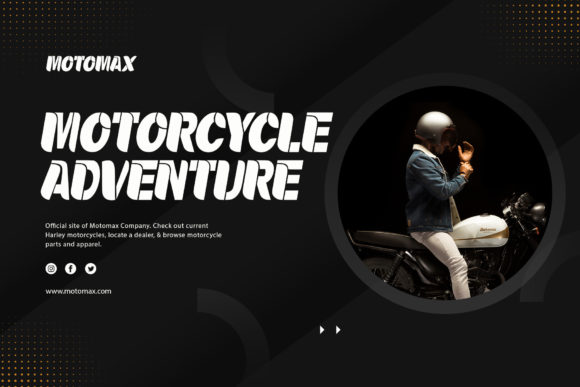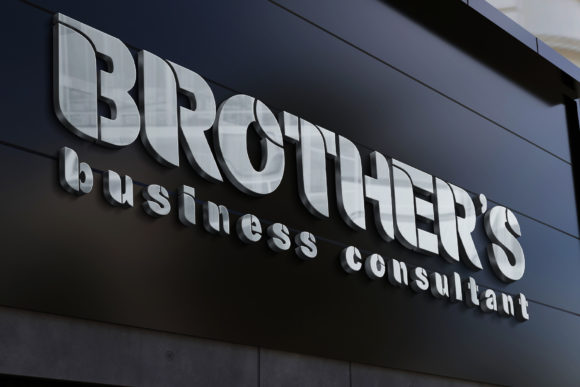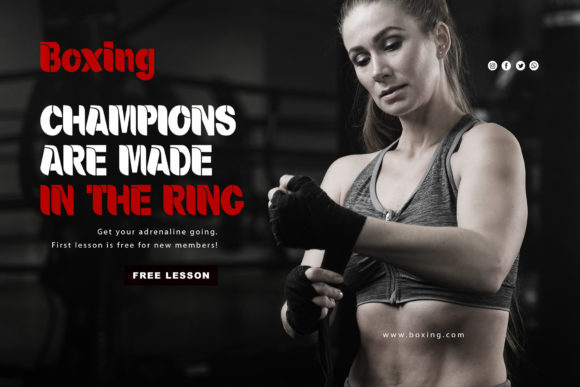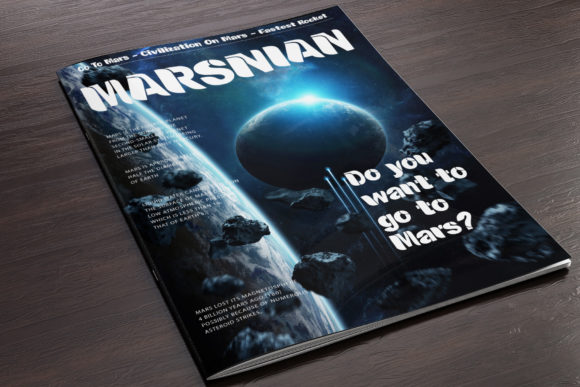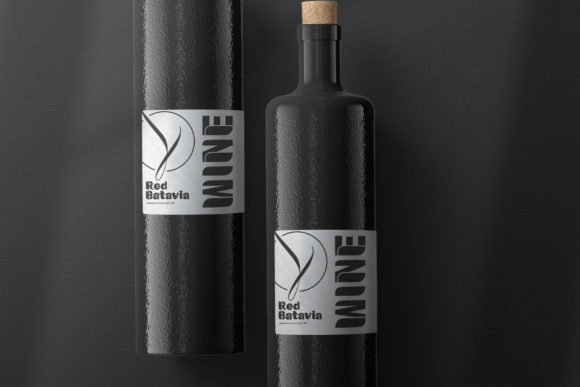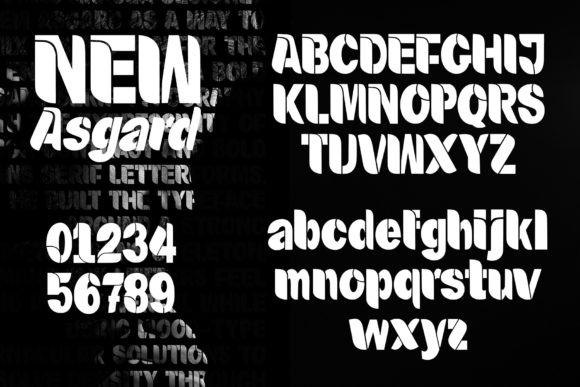
Introduction to New Asgard Font
Do you remember that moment when your creative idea finally comes together, and you can’t wait to share it with the world? That rush of excitement is what drives designers like us to keep pushing the boundaries of what’s possible. And for those moments when you need a font that can elevate your design to the next level, we’re excited to introduce you to the New Asgard Font – a modern and futuristic display font that’s about to take your creative project to new heights!
With its bold characters and solemn style, the New Asgard Font is a game-changer for designers. Whether you’re working on a free download project or a high-quality commercial design, this versatile font is sure to make your design stand out. Plus, with its transparent background, you can easily customize it to fit your design resource needs. In this article, we’ll dive deeper into the world of the New Asgard Font and explore why it’s a valuable addition to any designer’s toolkit.
Key Features of New Asgard Font
- Unique, hand-drawn design ideal for creative projects and illustrations
Honest Review: New Asgard Font
I recently had the chance to work with the New Asgard Font, and I’m excited to share my thoughts on this design resource.
- High quality font styles that are perfect for a creative project
- Free download option available, which is great for designers on a budget
- Transparent background makes it easy to use in various design scenarios
- Unique and futuristic feel that’s perfect for sci-fi or tech-related projects
- Limited font styles available, which might not be suitable for all design needs
- No customizability options, which might limit its use in certain creative projects
Overall, I was impressed with the New Asgard Font’s high quality and unique style. While it has some limitations, it’s still a great design resource to have in your collection. I’d definitely recommend it for designers working on creative projects that require a futuristic feel.
Tips for Getting the Most Out of New Asgard Font
Experiment with different font sizes, colors, and arrangements to create visually appealing designs. Use the font in conjunction with other design resources to enhance your creative project.
New Asgard Font is suitable for a variety of creative projects, including:
- Graphic design and branding
- Print materials and marketing collateral
- Digital content and social media graphics
Alternatives to New Asgard Font
Open Sans is a highly legible sans-serif font, ideal for creative projects that require a clean and modern look. It’s available for free download and offers high-quality results with a transparent background.
When to use: Use Open Sans for headings and body text in creative projects, such as websites, magazines, and marketing materials.
How it compares to New Asgard Font: Open Sans has a more neutral tone compared to New Asgard Font’s bold and futuristic feel. It’s a versatile font that works well in a variety of contexts.
Lato is a modern sans-serif font that offers a high-quality design resource for creative projects. It’s available for free download and features a transparent background, making it ideal for backgrounds and overlays.
When to use: Use Lato for headings and body text in creative projects that require a clean and modern look, such as websites, mobile apps, and branding materials.
How it compares to New Asgard Font: Lato has a more elegant and sophisticated feel compared to New Asgard Font’s bold and futuristic style. It’s a great alternative for projects that require a more refined look.
Montserrat is a geometric sans-serif font that offers a high-quality design resource for creative projects. It’s available for free download and features a transparent background, making it ideal for backgrounds and overlays.